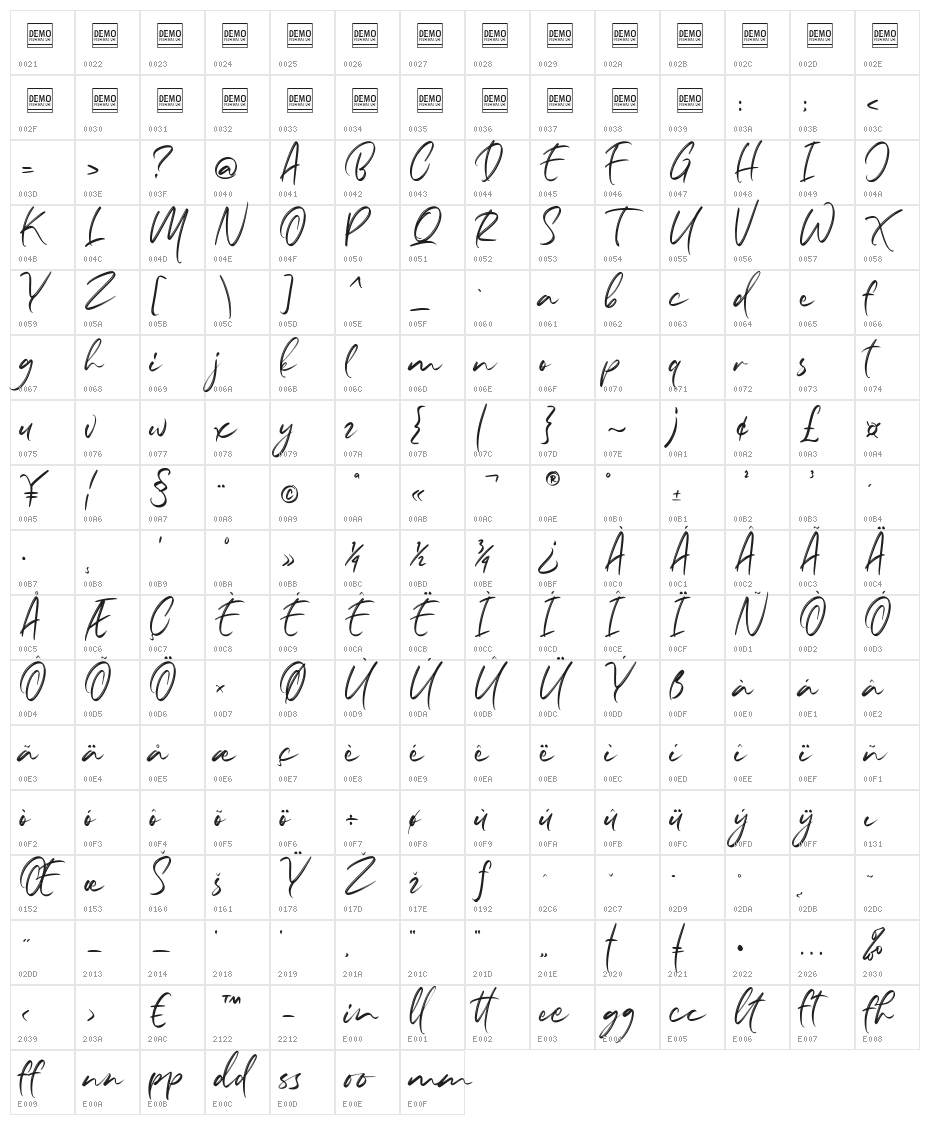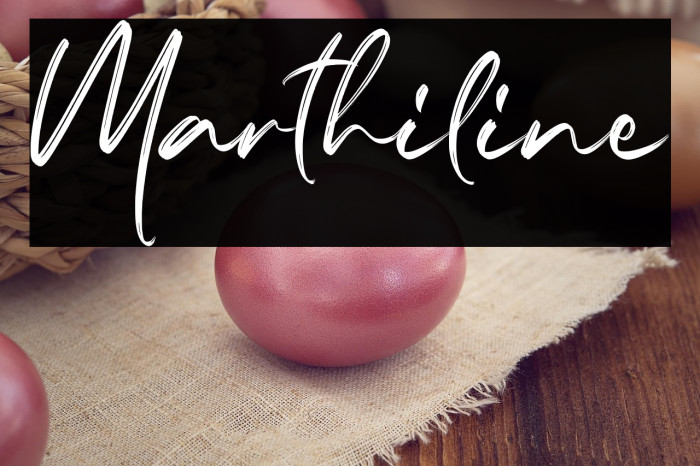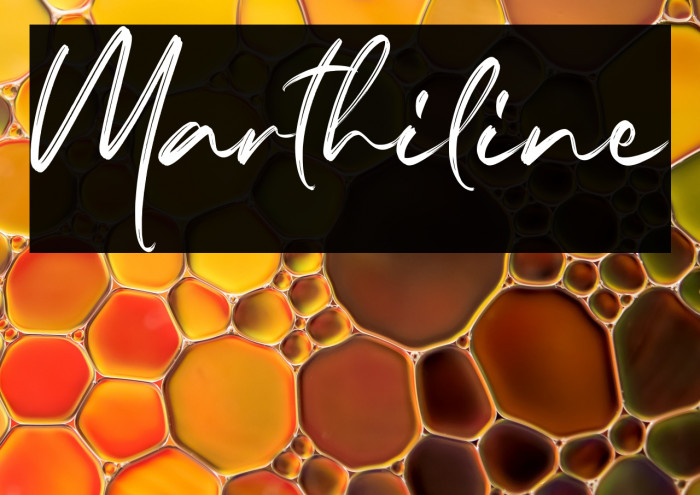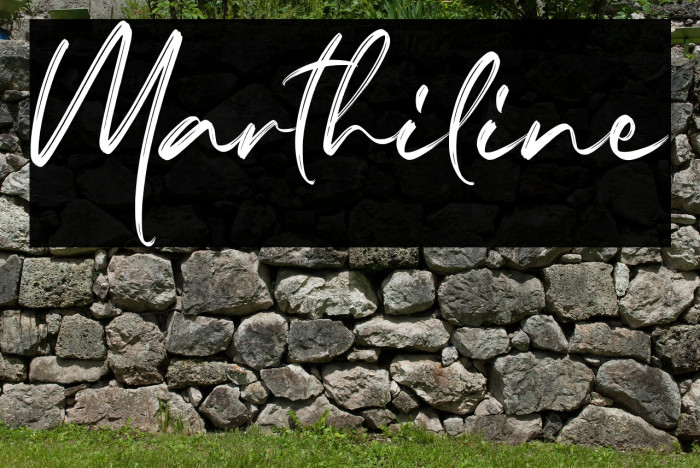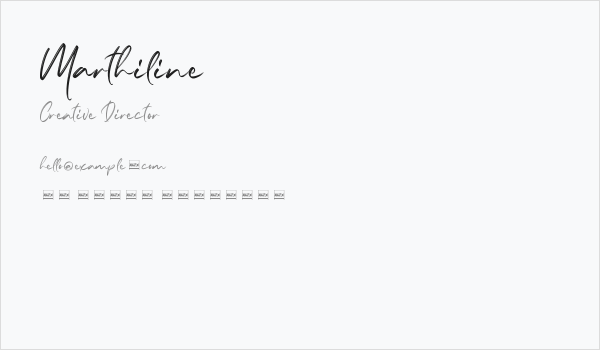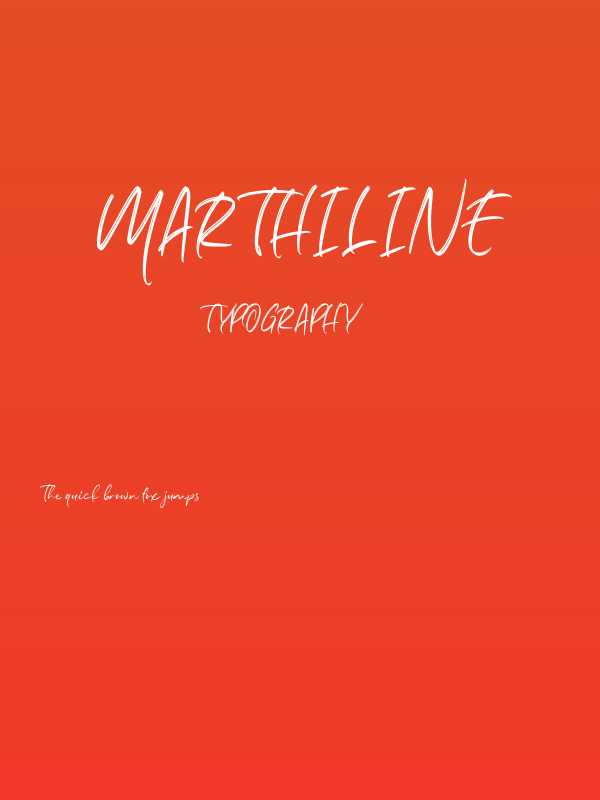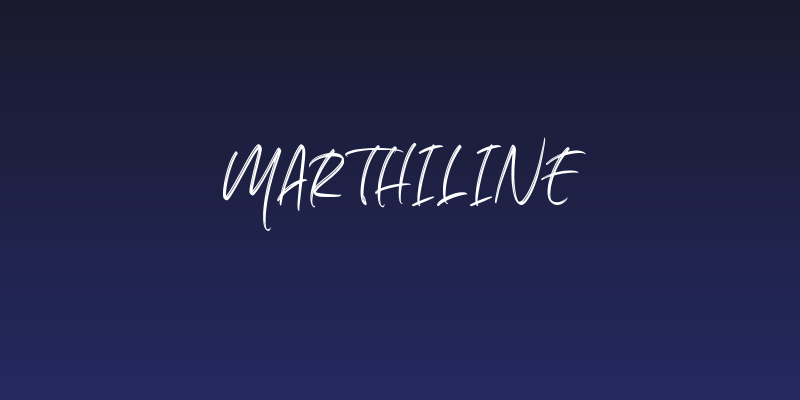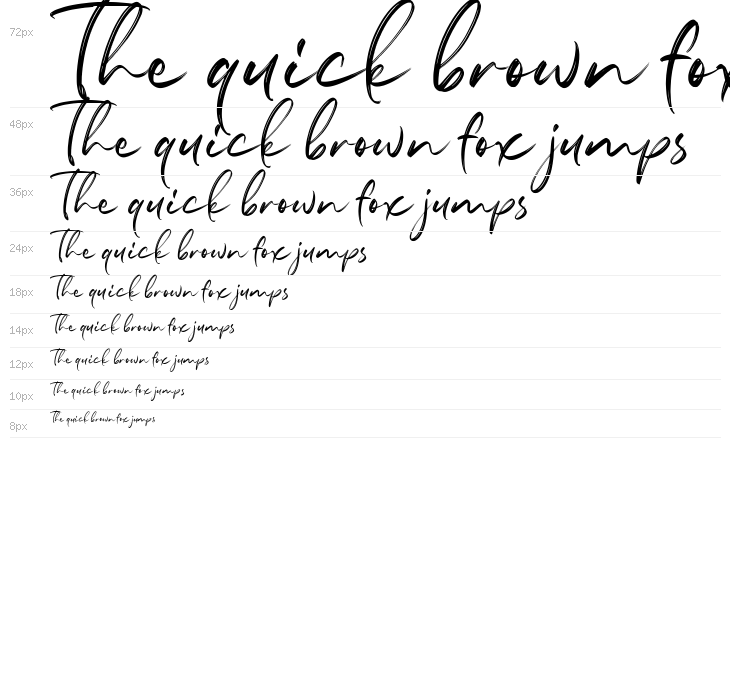
Marthiline Font
Marthiline Description
This font features a dynamic and flowing script style, characterized by its elegant and fluid strokes. The letters are connected in a cursive manner, giving it a handwritten appearance. The uppercase letters are bold and expressive, while the lowercase letters maintain a consistent flow, enhancing readability. The font exhibits a medium contrast in stroke thickness, adding to its visual appeal. It is well-suited for projects that require a personal touch, such as invitations, greeting cards, and branding materials. The overall style is modern and artistic, making it versatile for various design applications.
| Proposed Projects | Ideal for invitations, greeting cards, branding, and artistic projects. |